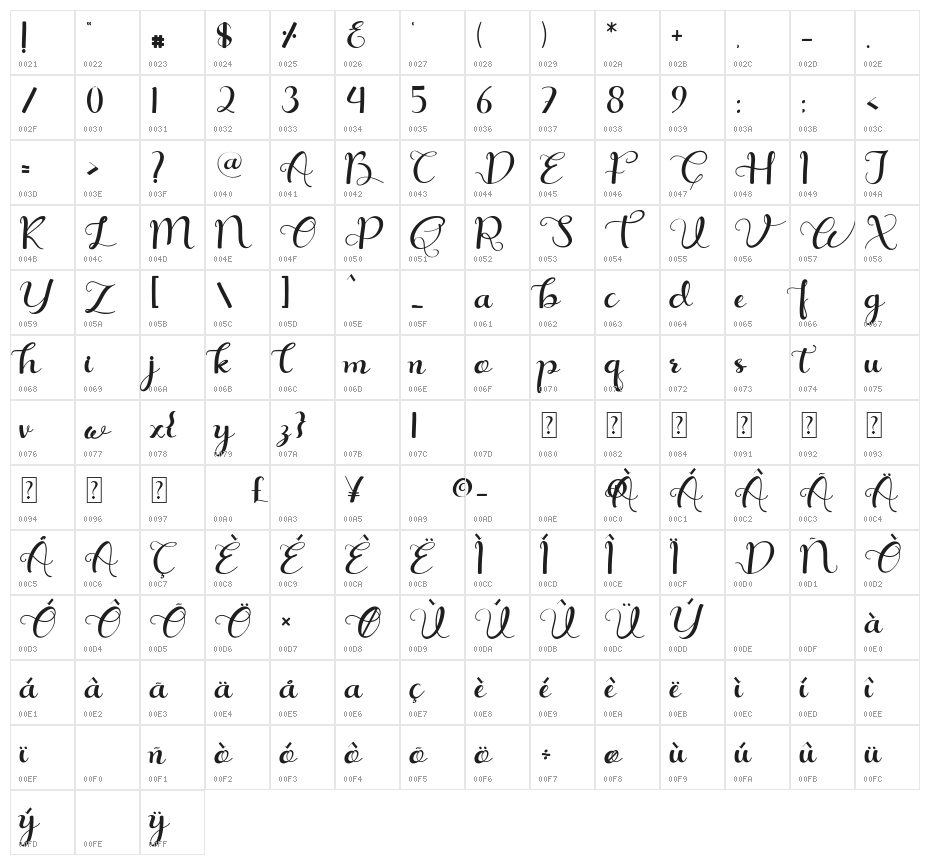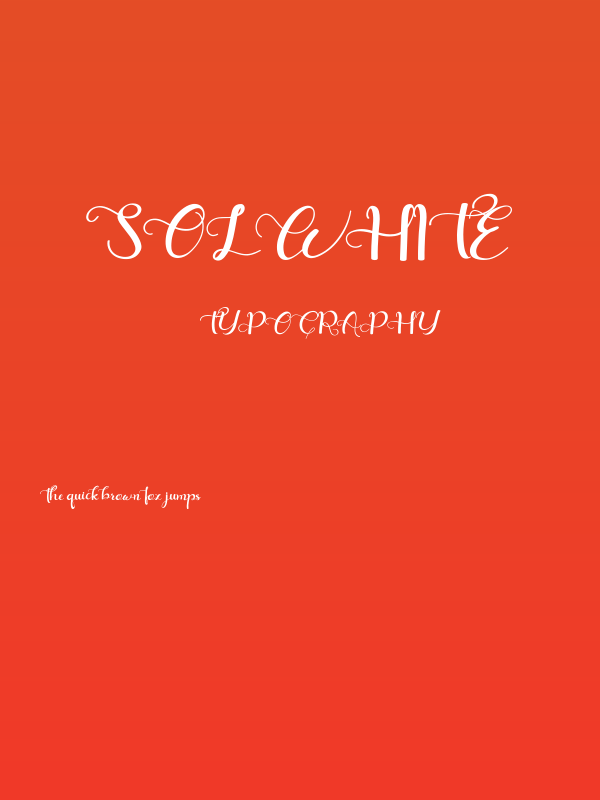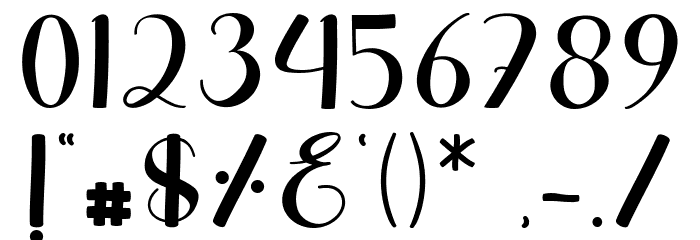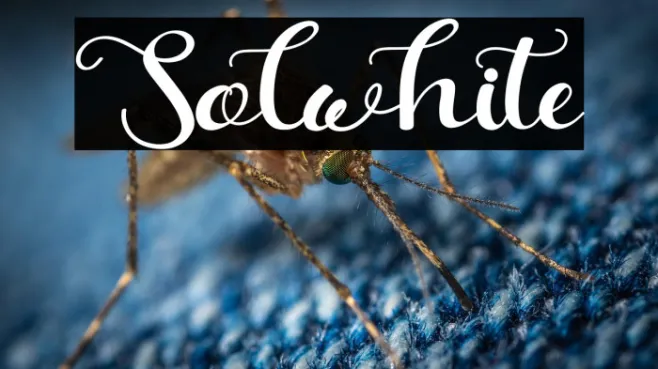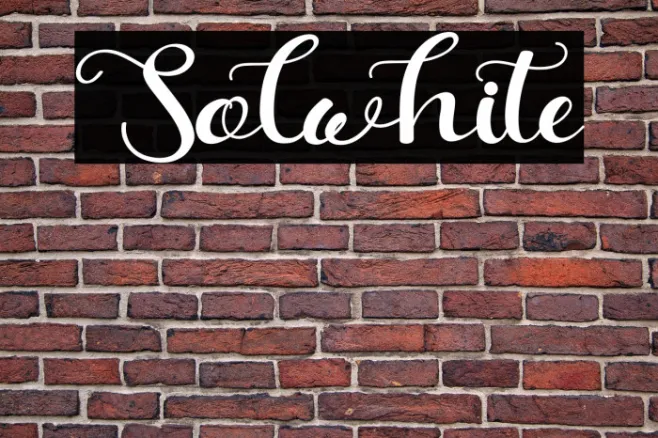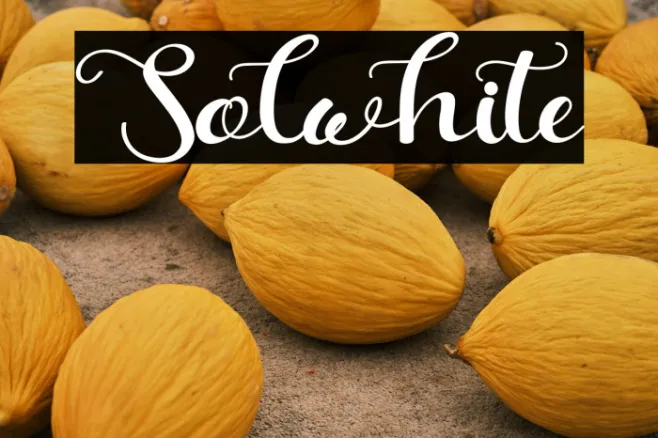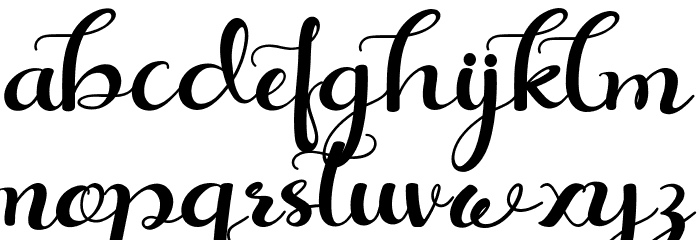
Solwhite Font
Solwhite Description
This font features an elegant and flowing script style, characterized by its intricate swirls and loops that give it a sophisticated and artistic appearance. The uppercase letters are particularly ornate, with decorative flourishes that extend from the main strokes, adding a touch of drama and flair. The lowercase letters maintain a more subdued elegance, with smooth, flowing lines that enhance readability while retaining the font's overall decorative nature. The numerals are bold and clear, providing a nice contrast to the more delicate letterforms. Special characters are thoughtfully designed to match the font's aesthetic, ensuring a cohesive look across all text elements.
| Proposed Projects | Ideal for wedding invitations, luxury branding, elegant packaging, and artistic posters. |